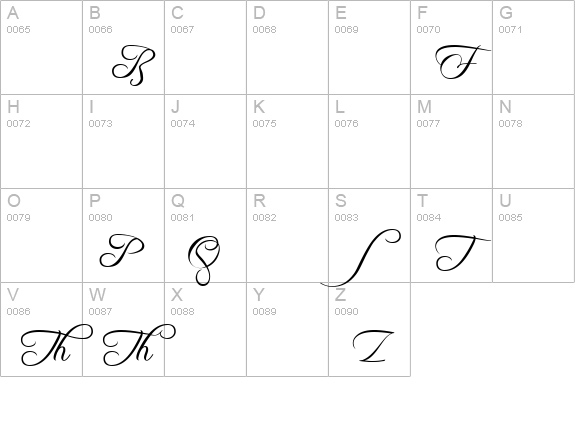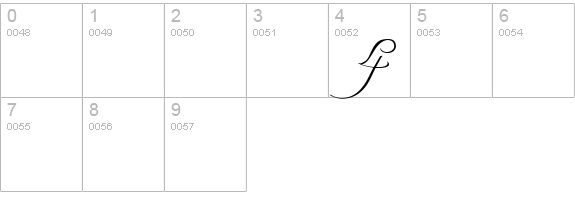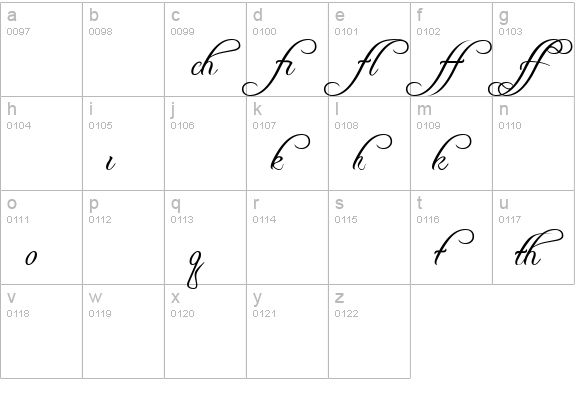
Freebooter Script - Alts Font Details
Freebooter Script - Alts font is an elegant and sophisticated typeface that exudes a sense of timeless beauty. This font features intricate details and graceful curves, making it perfect for adding a touch of luxury to your designs. The alternate characters in this font add versatility and allow for creative customization options. Whether you're working on a wedding invitation, branding project, or any other design that calls for a touch of sophistication, Freebooter Script - Alts font will elevate your work to new heights. Best of all, this stunning font is available for free download at FontsMarket.com. Don't miss out on the opportunity to enhance your designs with this exquisite typeface without breaking the bank. Download Freebooter Script - Alts font today and start creating visually captivating and memorable designs that stand out from the crowd.